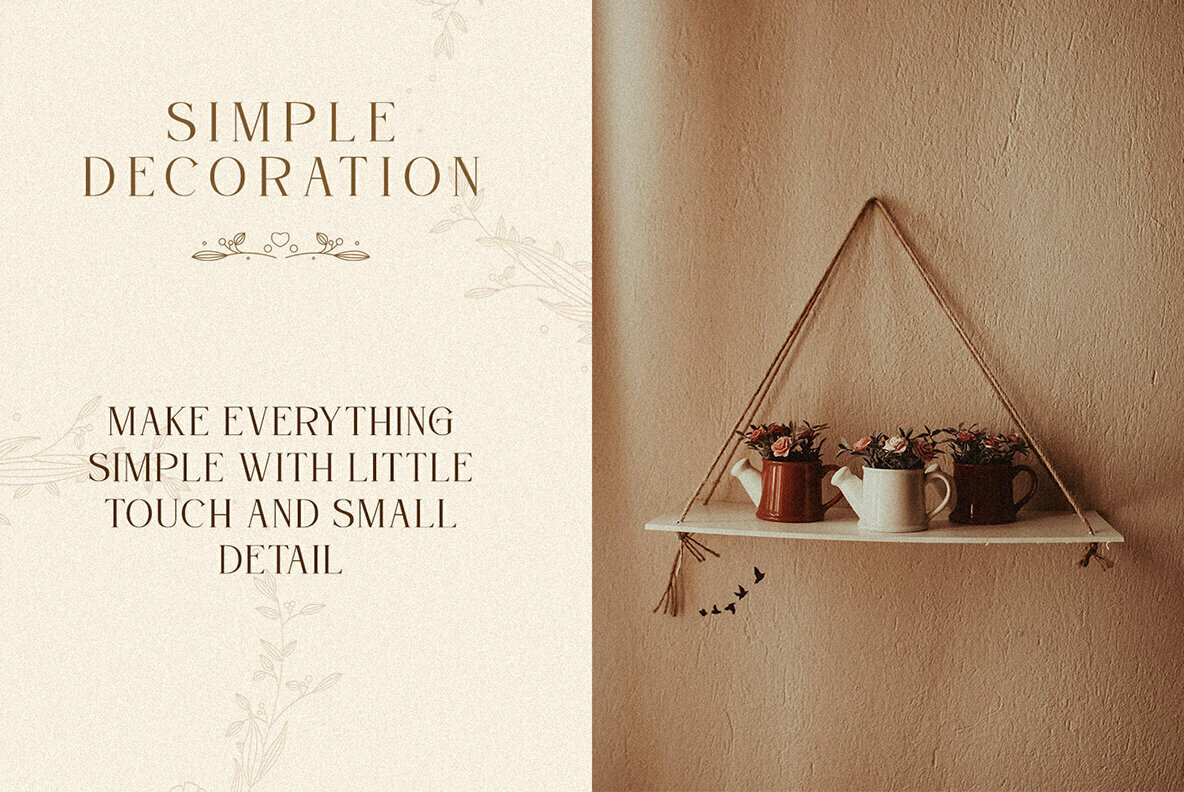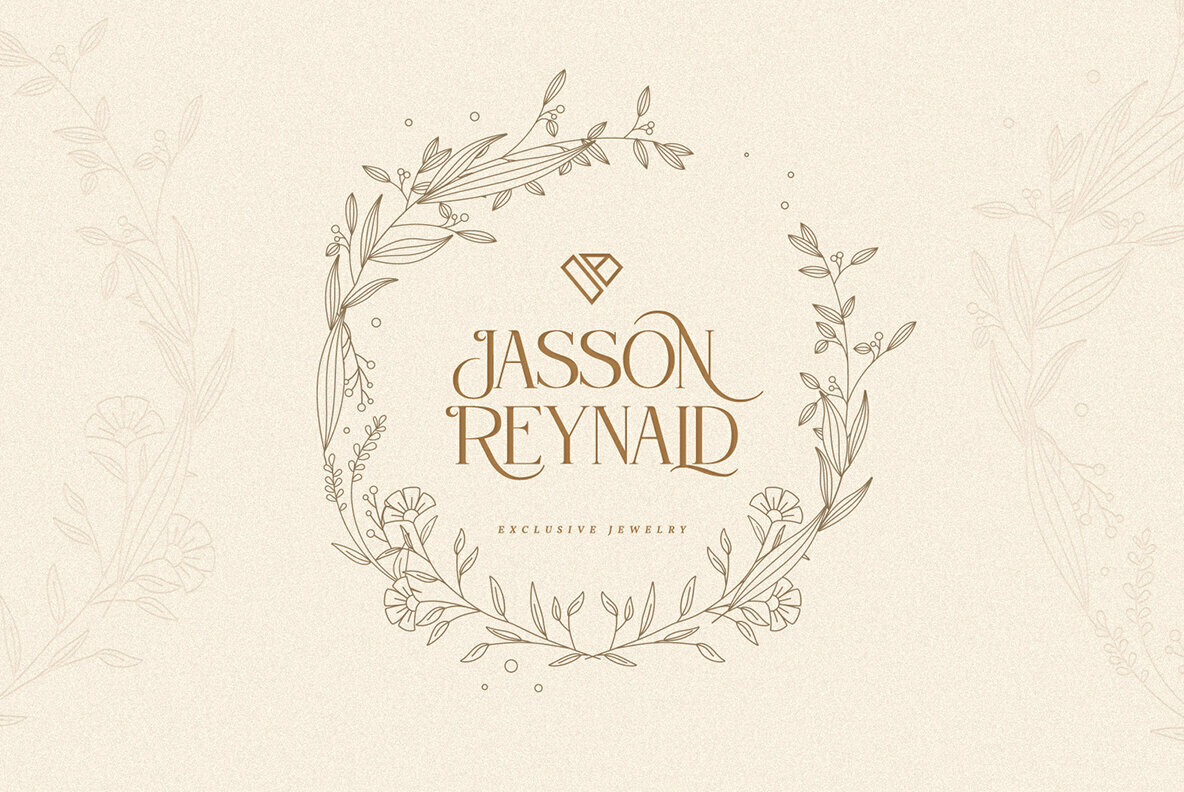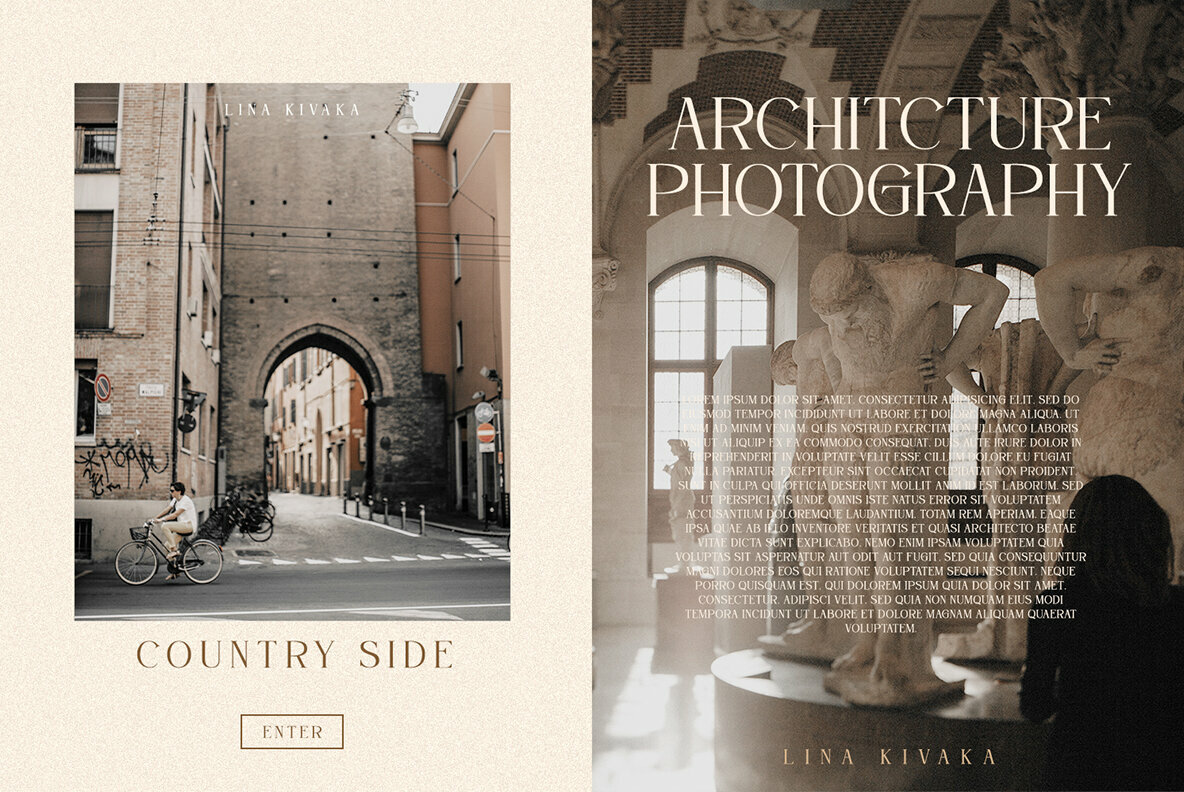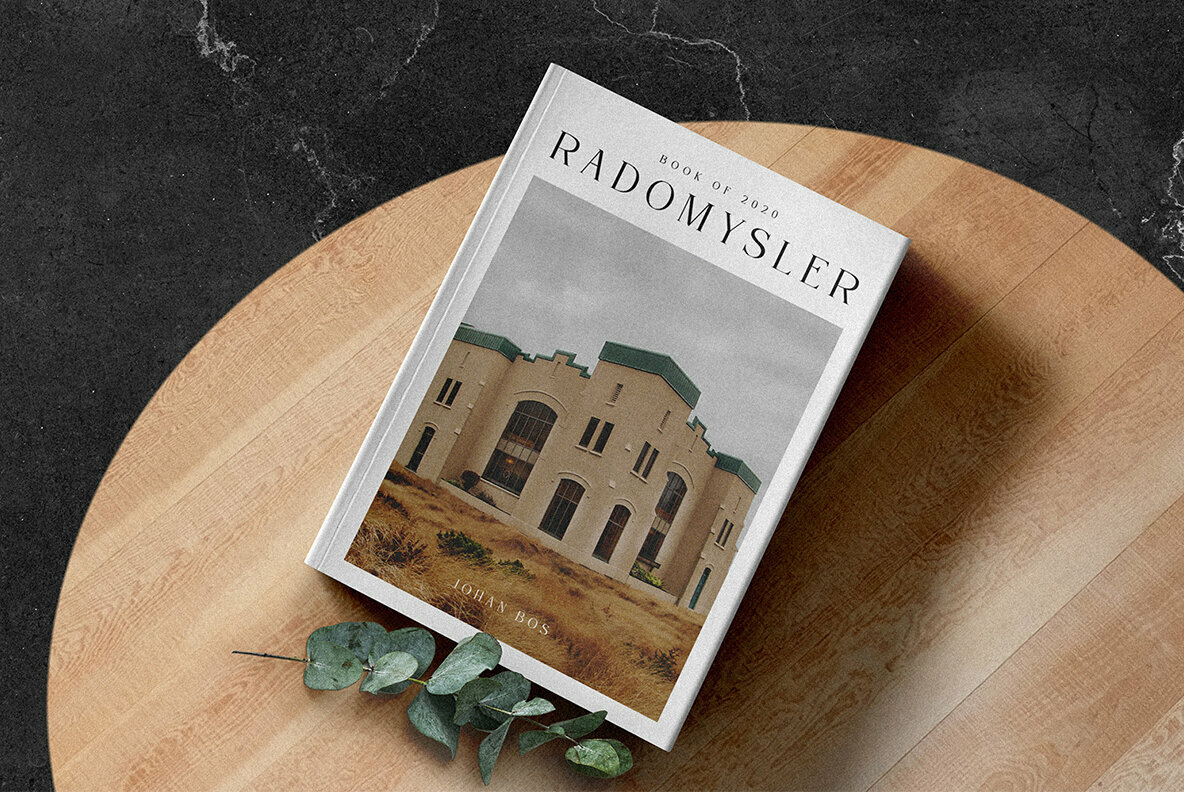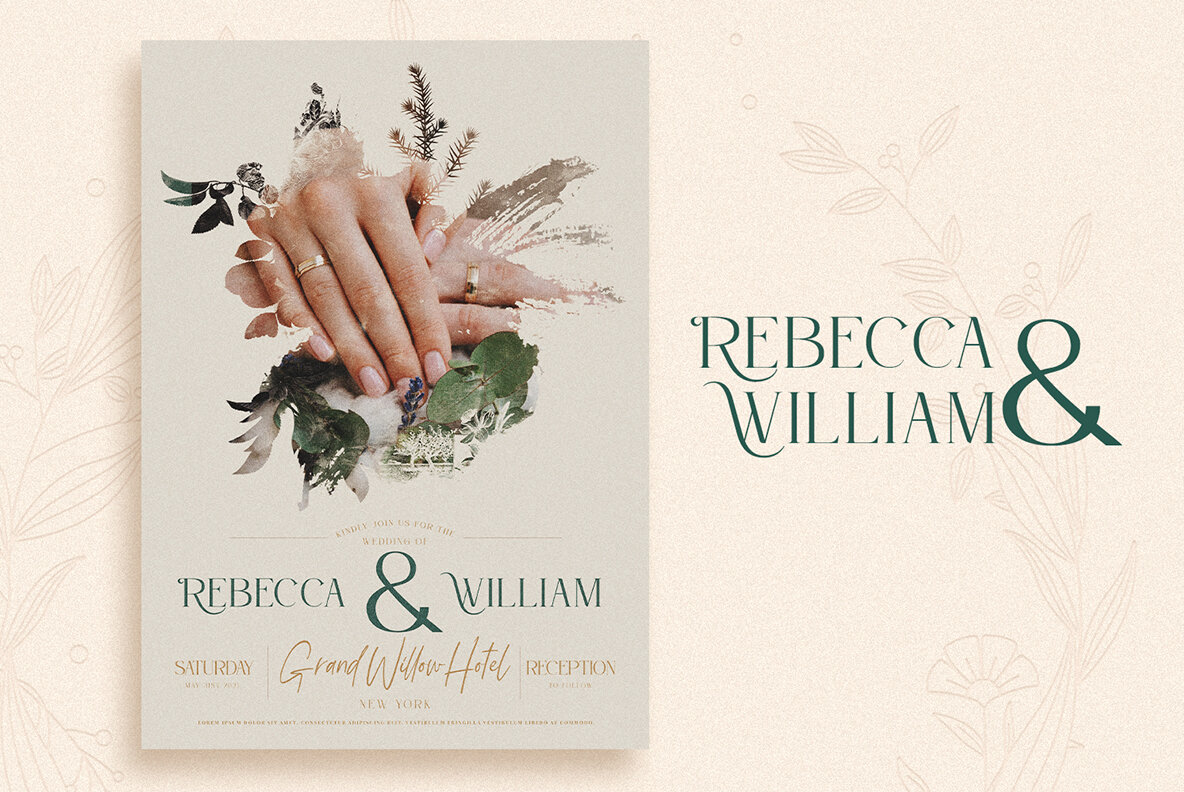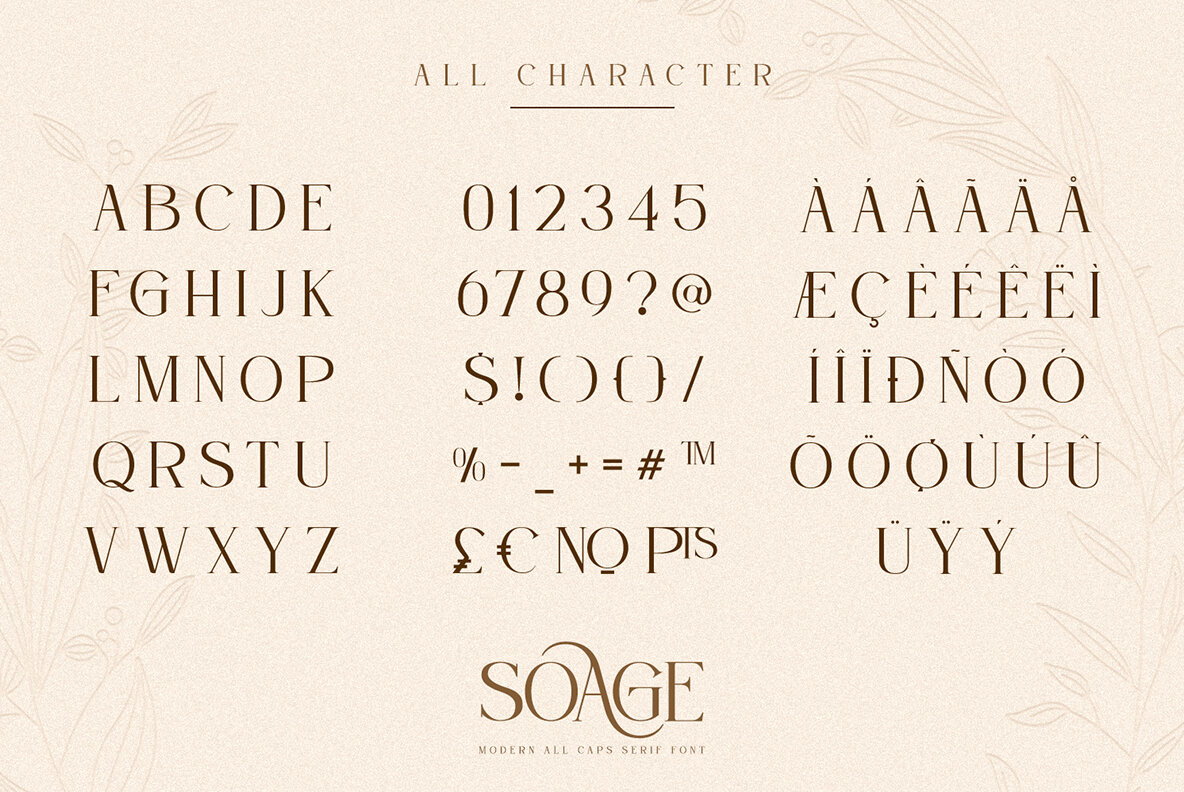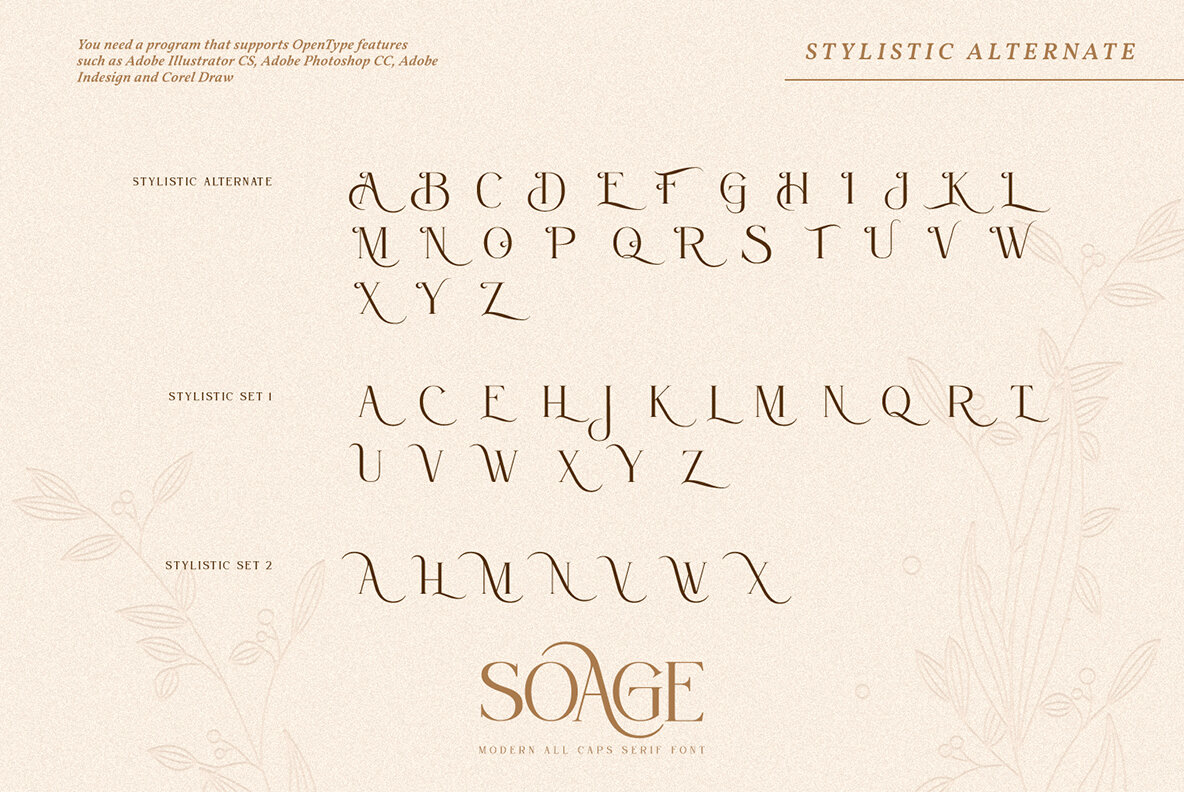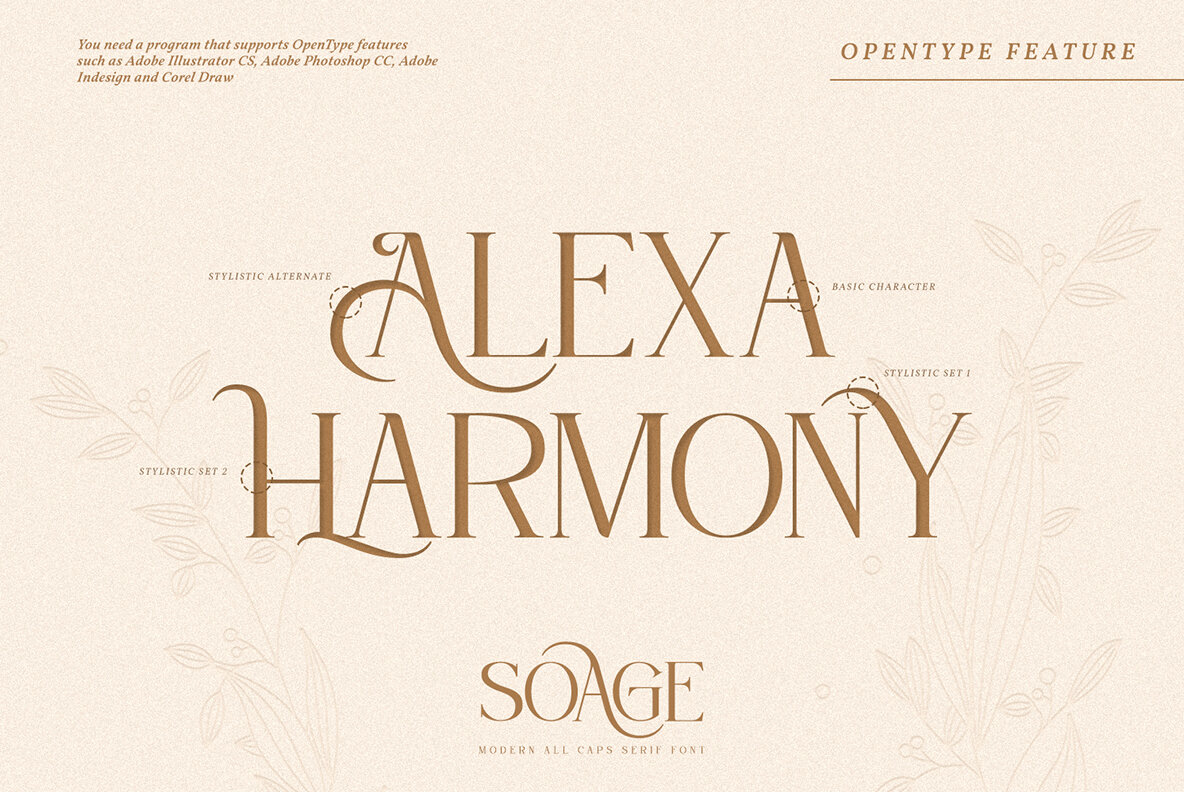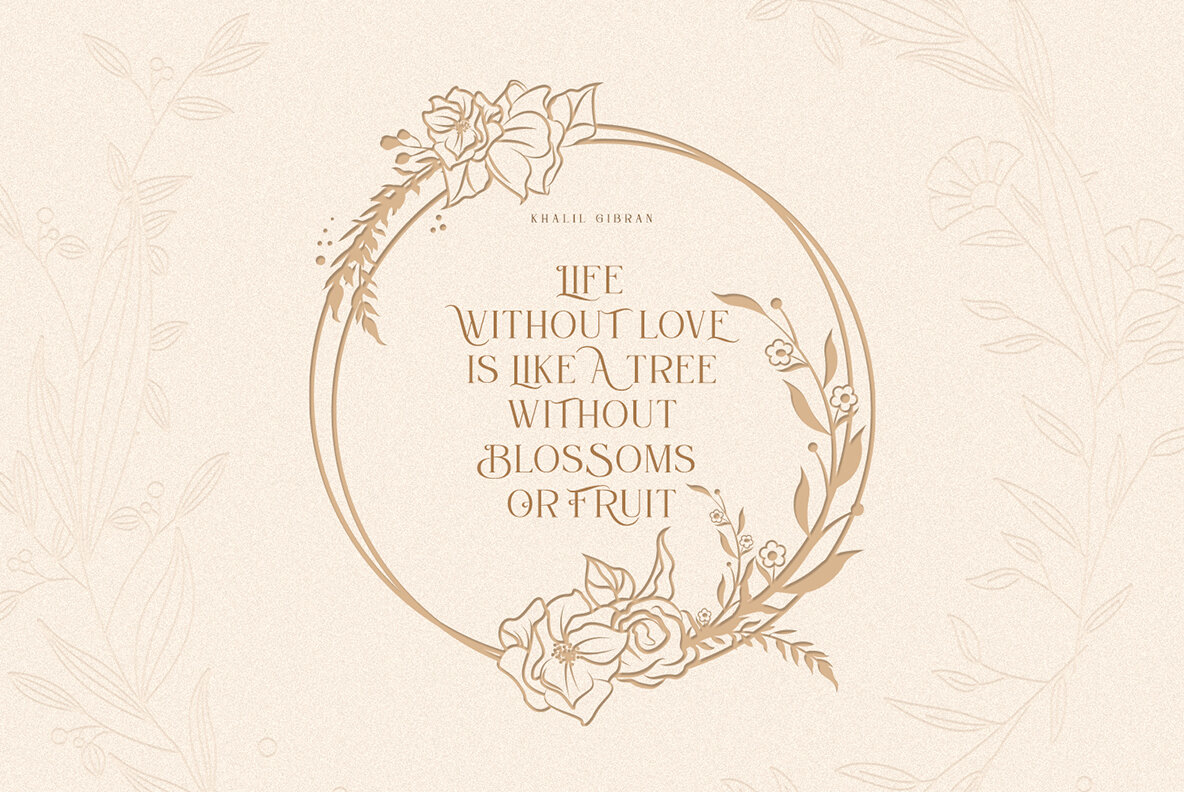
Soage Font
Soage
Soage brings a modern touch to the timeless appeal of sans serif fonts, making it ideal for branding, printing, weddings, and quotes. This font shines with its distinctive character and beautiful details embedded in every letter, providing an unmistakable identity to professional projects.Soage: A Versatile Sans Serif for Professional Branding